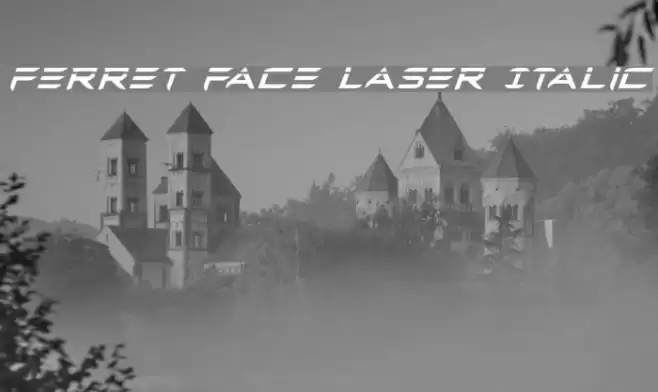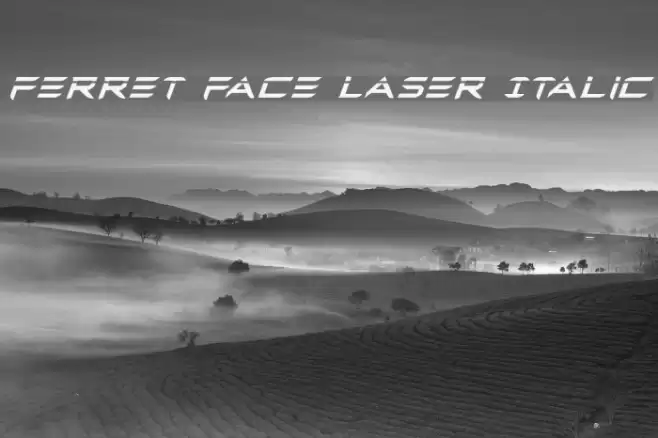
Ferret Face Laser Italic Font
Ferret Face Laser Italic Description
This font features a futuristic and angular design, characterized by sharp edges and a dynamic slant that gives it a sense of motion and energy. The uppercase and lowercase letters maintain a consistent style, with each character exhibiting a unique, geometric form. The numbers and special characters are equally stylized, ensuring a cohesive look across all glyphs. The font's bold strokes and italicized posture make it ideal for projects that require a modern and edgy aesthetic. Its distinct appearance is suitable for attention-grabbing headlines or branding that seeks to convey innovation and forward-thinking.
A futuristic, angular font with bold strokes and a dynamic slant from Uncategorized fonts.
- Proposed Projects: Ideal for sci-fi themed designs, tech branding, video game titles, and modern advertising.